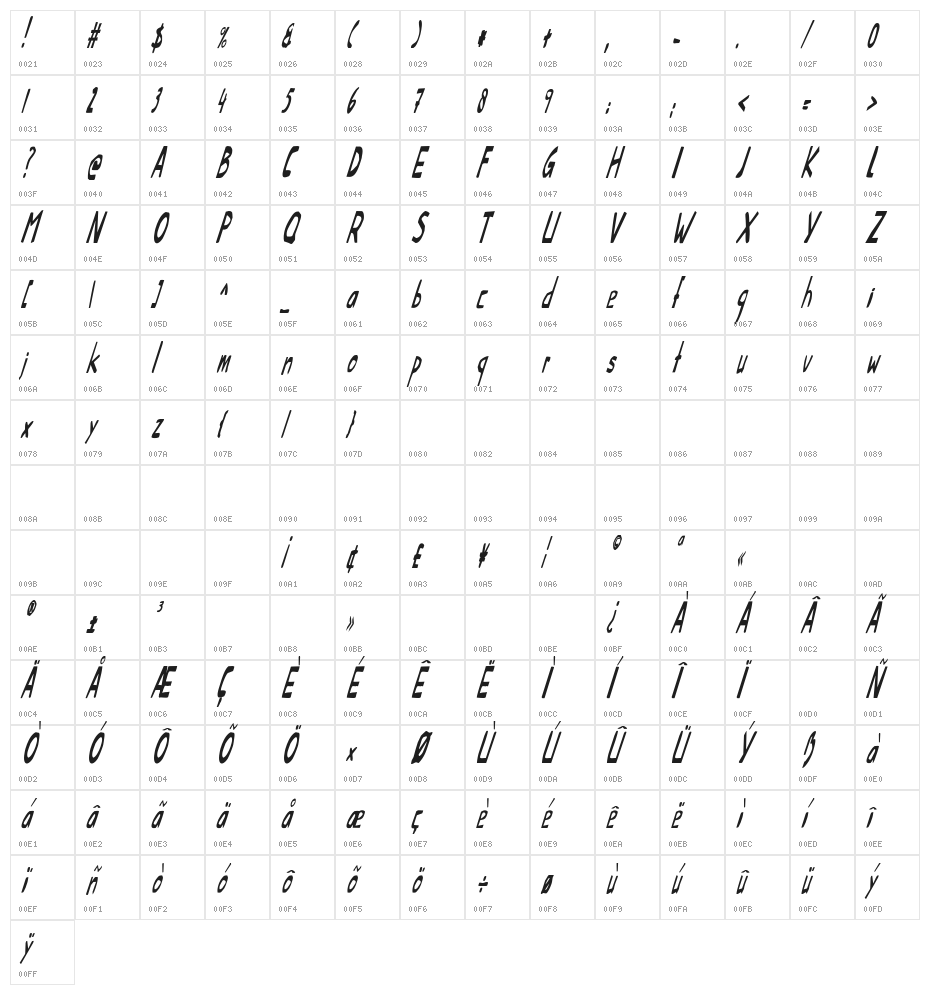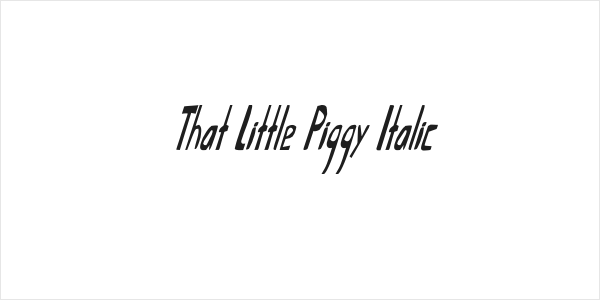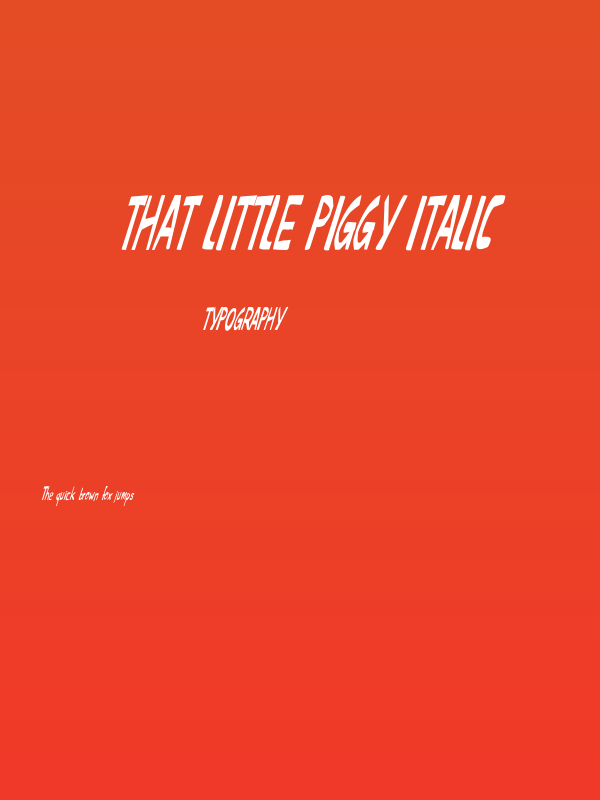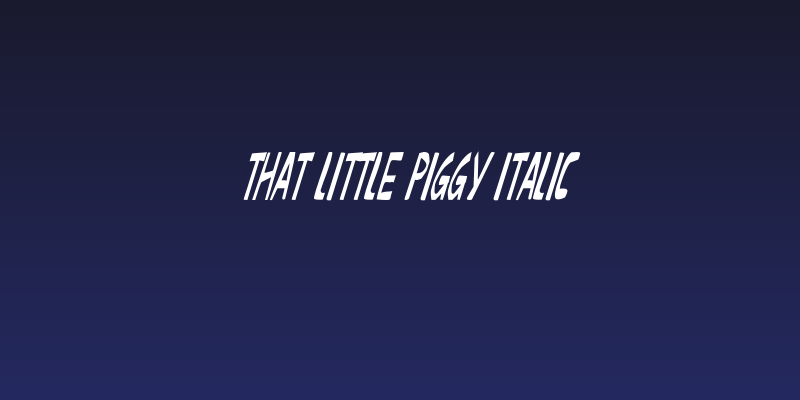
That Little Piggy Italic Font
That Little Piggy Italic Description
This font features a dynamic and playful italic style with a distinct slant, giving it a sense of motion and energy. The characters are bold and slightly condensed, with sharp angles and a modern flair. The uppercase letters are tall and commanding, while the lowercase letters maintain a consistent flow, enhancing readability. The numerals are bold and clear, matching the overall style of the alphabet. Special characters are creatively designed, adding to the font's unique personality. This font is ideal for projects that require a lively and engaging typeface.
| Proposed Projects | Great for posters, branding, headlines, and any design needing a lively touch. |